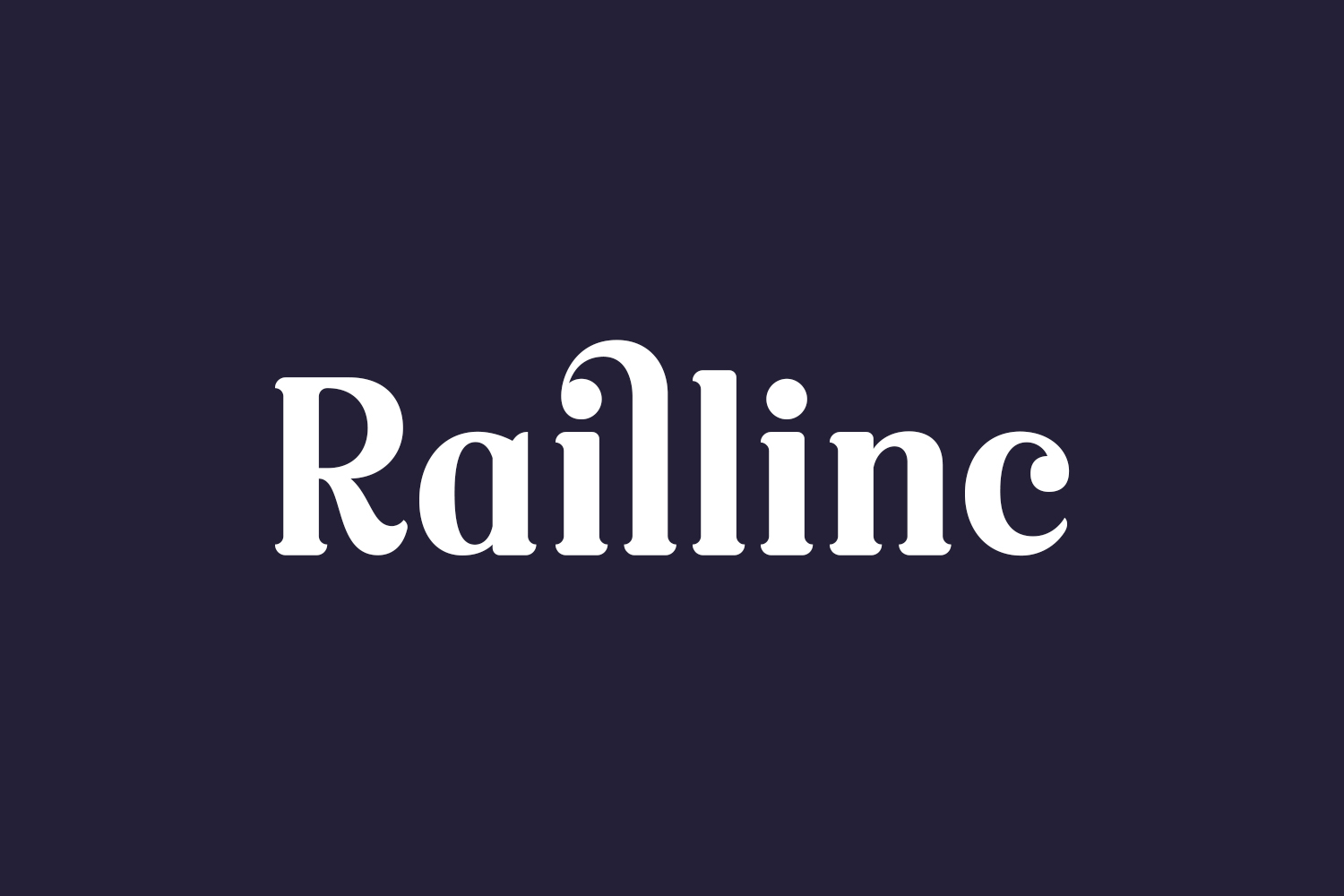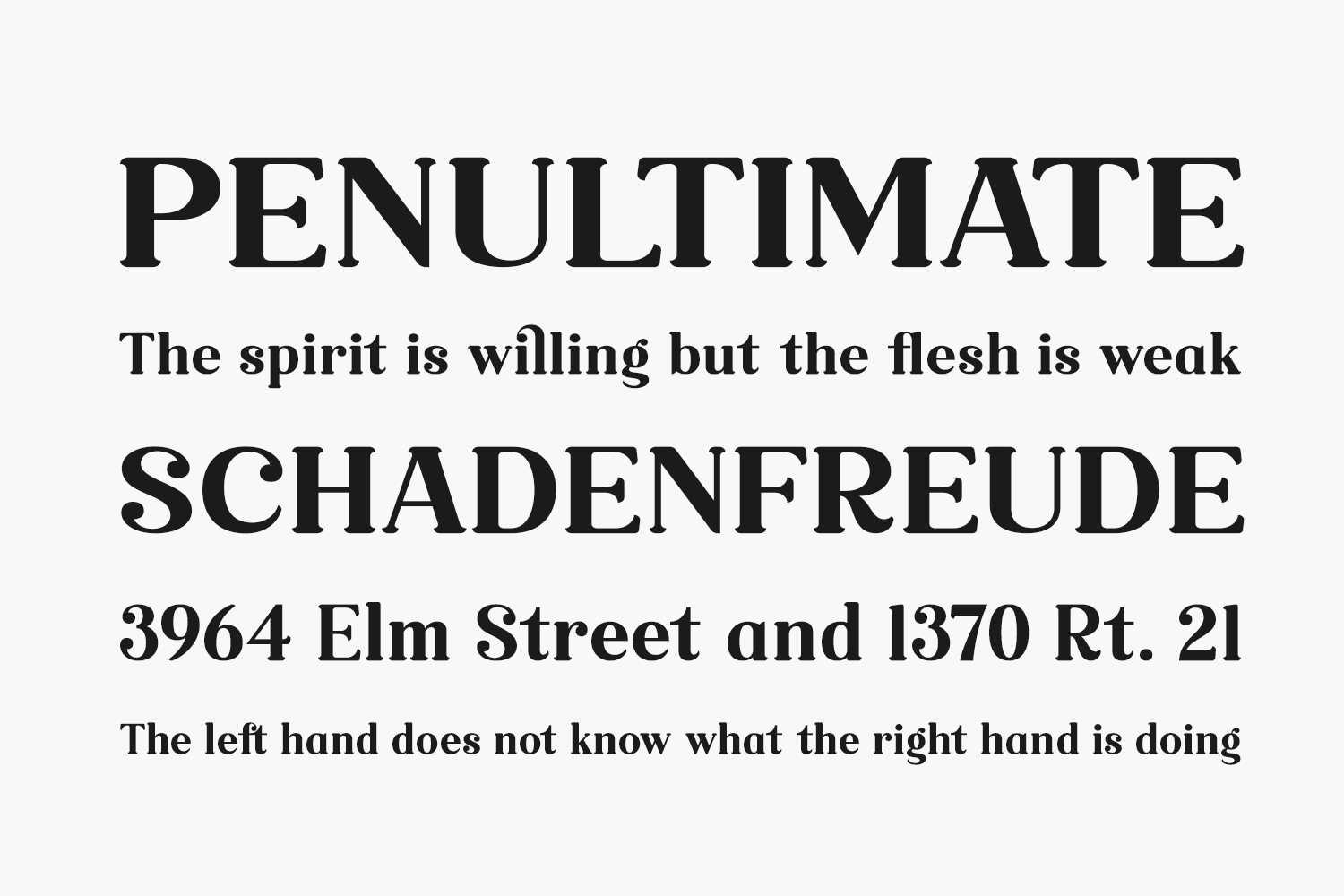
It sounds like Raillinc Free Font is a versatile typeface suitable for various design projects, particularly those that require an elegant and luxurious aesthetic. Its combination of modern and classic elements likely makes it appealing for a wide range of applications, from logos to titles to lettering and quotes. If you’re looking to create designs with a sophisticated touch, Raillinc Free Font seems like a promising option to explore. Download the font for free if you need it for personal use or purchase the full version for commercial use.